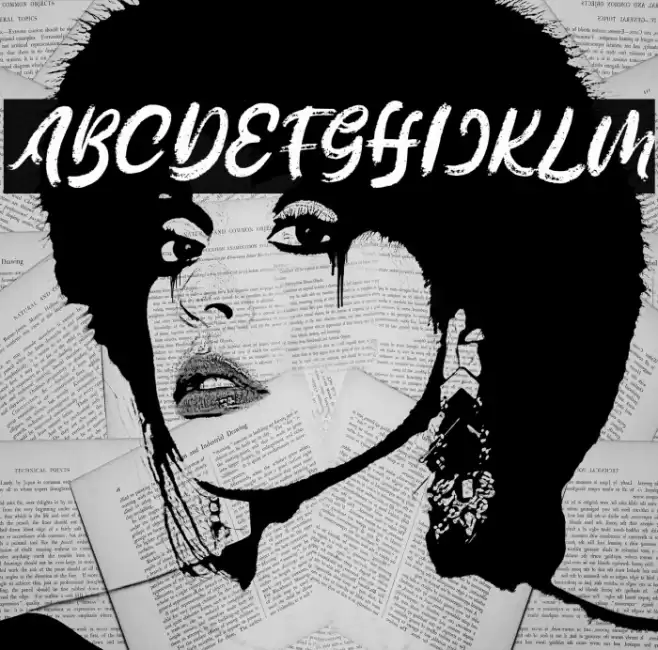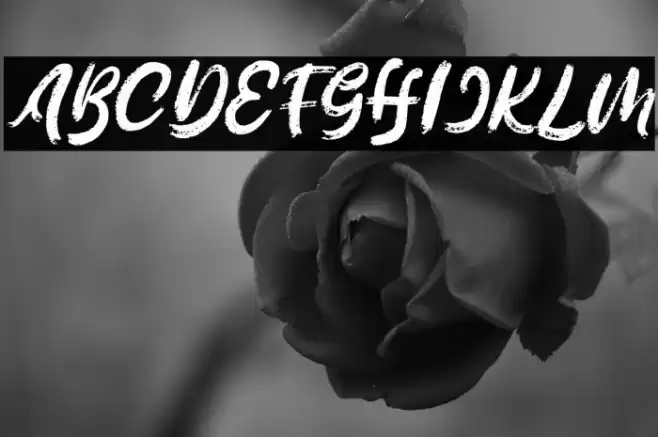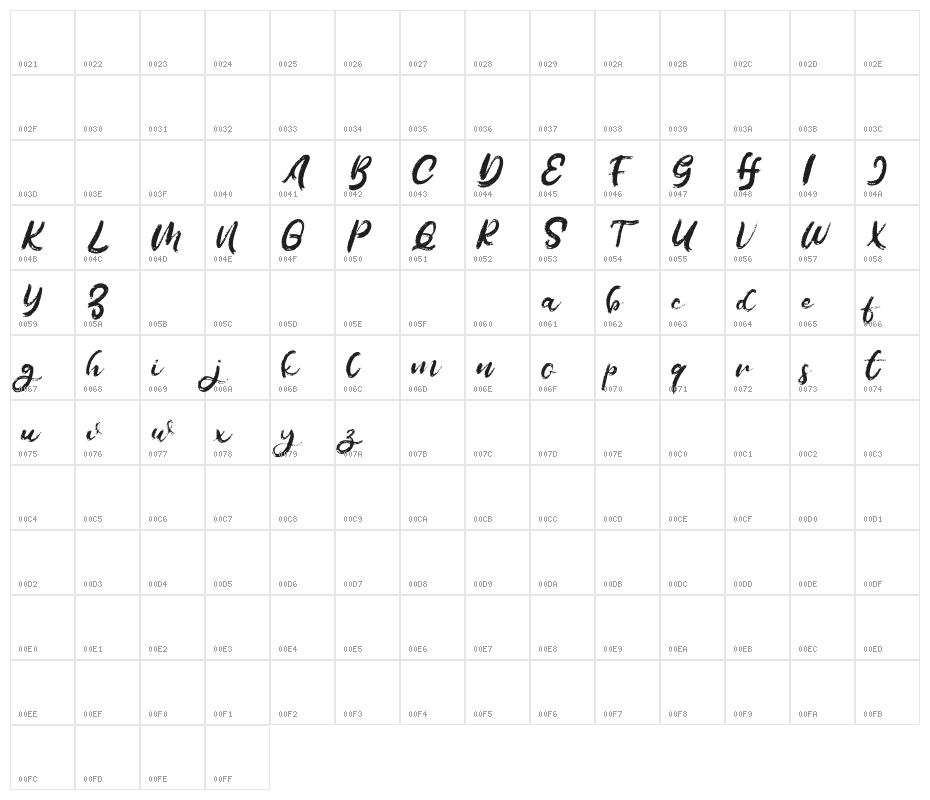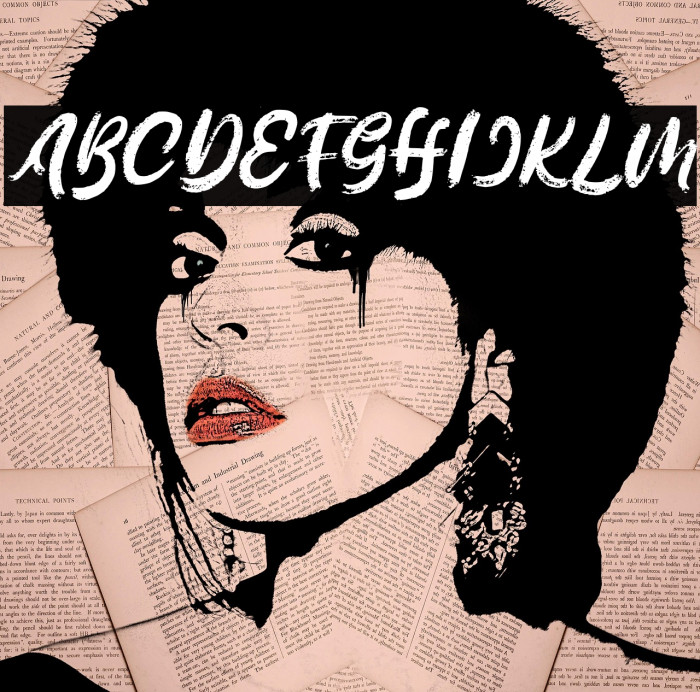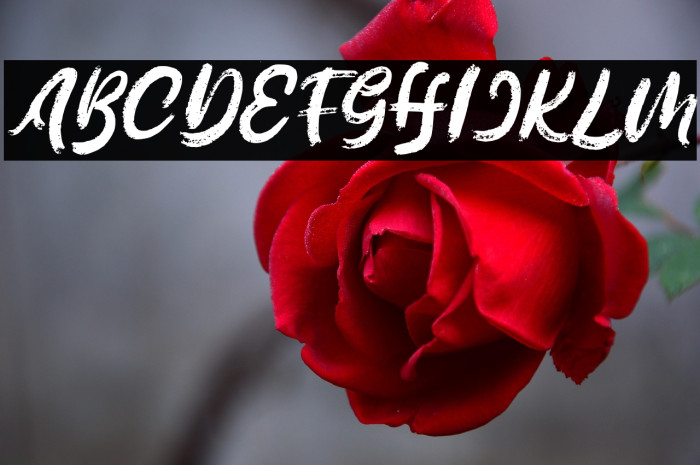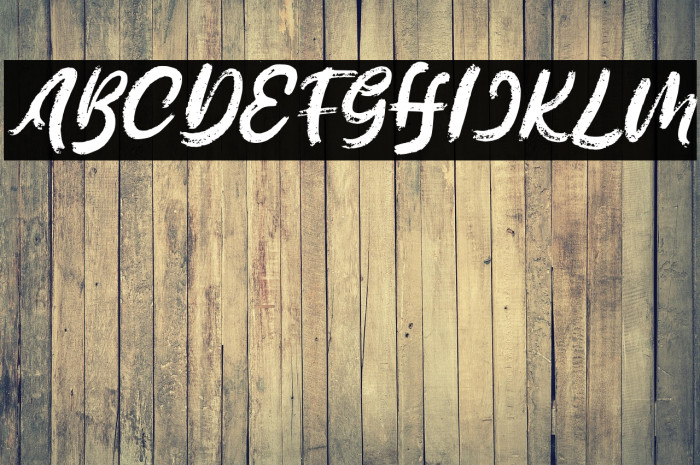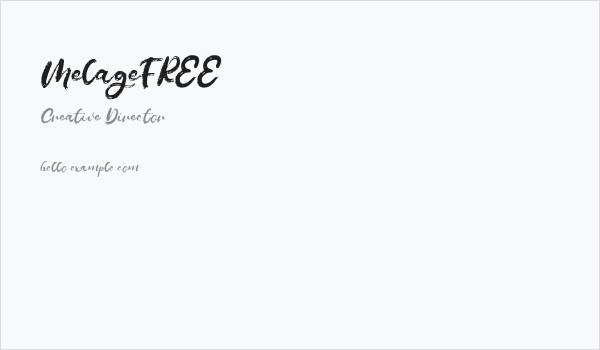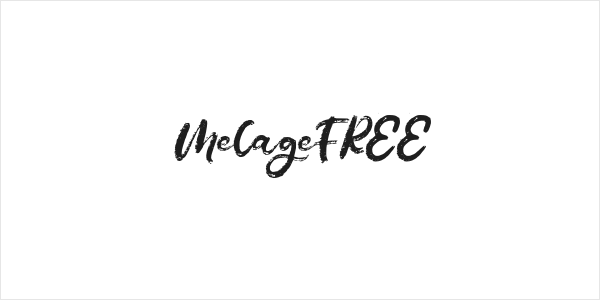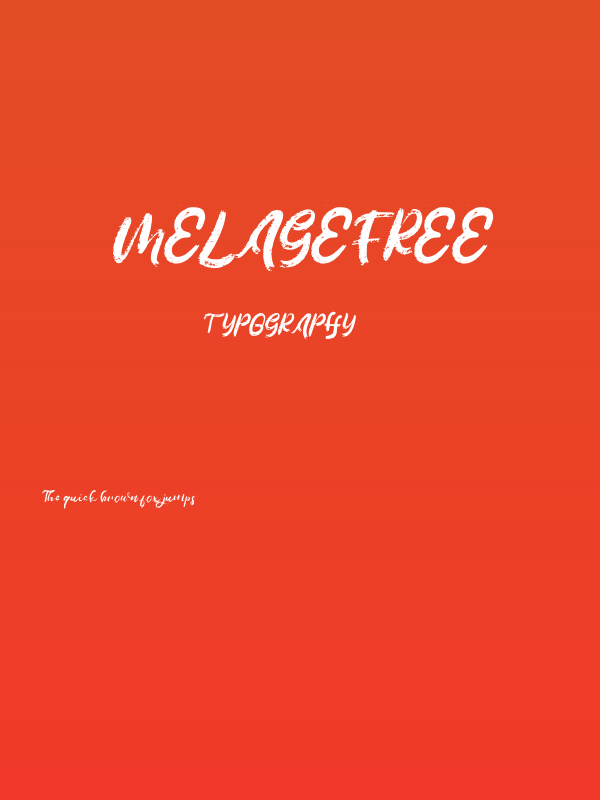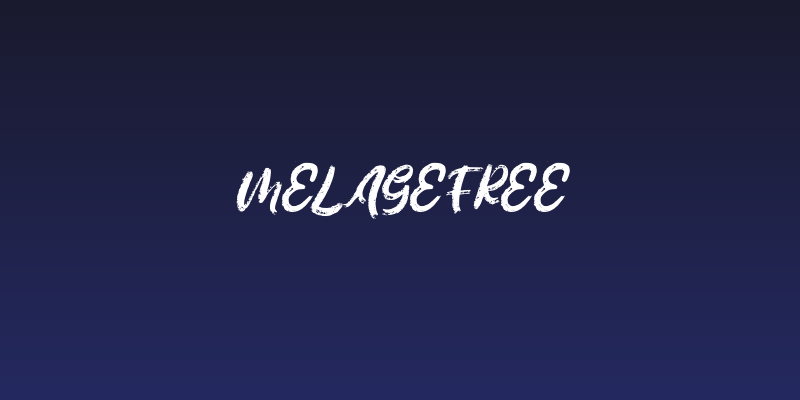
MelageFREE Font
MelageFREE Description
This font features a bold, brush-like script style with a textured appearance, reminiscent of hand-painted lettering. The strokes are dynamic and expressive, with varying thickness that adds a sense of movement and energy. The uppercase letters are particularly striking, with sweeping curves and flourishes, while the lowercase letters maintain a cohesive flow. The texture gives it a rustic, artistic feel, making it stand out in any design. The numbers and special characters are consistent with the overall style, ensuring a harmonious look across all elements.
A bold, textured brush script font with dynamic strokes and artistic flair from Uncategorized fonts.